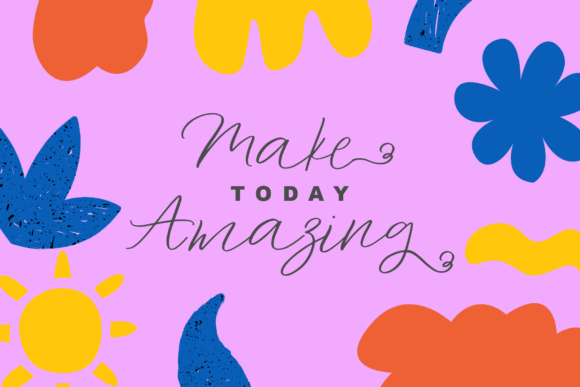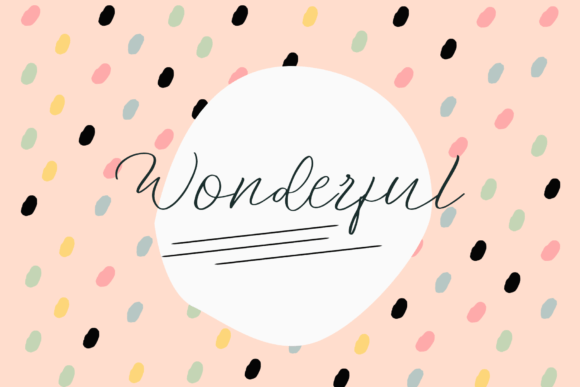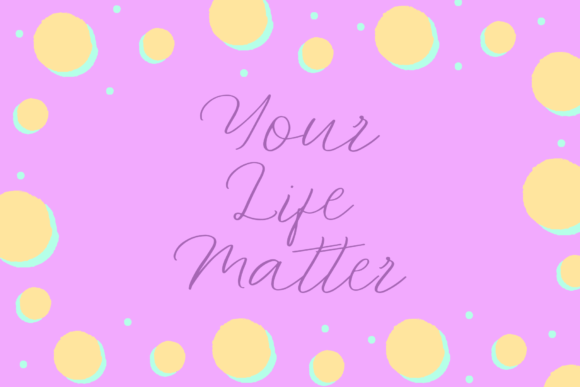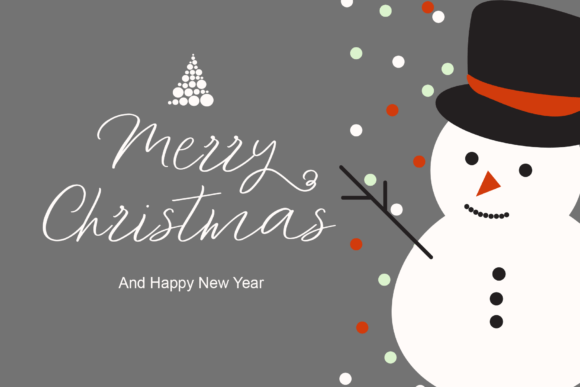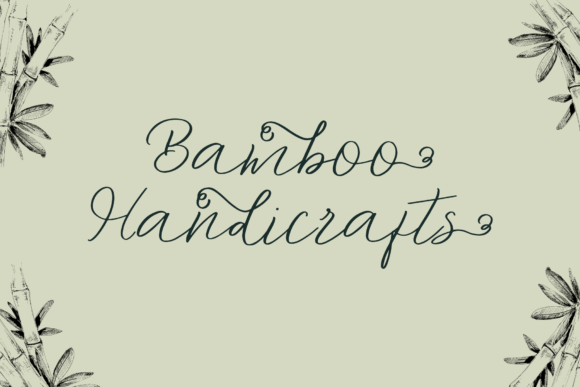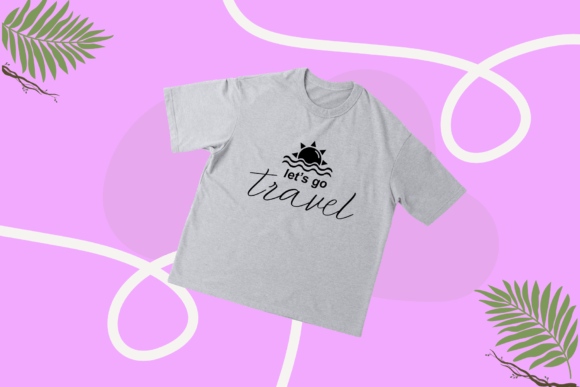
Introducing Hand Modify Font: Elevate Your Designs with a Touch of Whimsy
Are you tired of using the same old fonts in your designs? Do you want to add a personal touch to your creations? Look no further than Hand Modify Font, a fun and whimsical handwritten script font that’s sure to become a staple in your font library. In this article, we’ll dive into the features and benefits of Hand Modify Font, and explore how it can enhance your designs, whether you’re a seasoned designer or a crafty DIY enthusiast.
The Charm of Hand Modify Font
Hand Modify Font is a beautifully crafted handwritten script font that’s perfect for adding a touch of personality to your designs. With its flowing curves and playful strokes, this font is sure to capture the attention of your audience. Whether you’re creating a logo, a social media post, or a crafting project, Hand Modify Font is the perfect choice for anyone looking to add a dash of whimsy to their work.
One of the standout features of Hand Modify Font is its versatility. This font can be used on a wide range of topics, from formal events to casual gatherings, and everything in between. Whether you’re designing a wedding invitation, a party flyer, or a social media graphic, Hand Modify Font is sure to make your creation stand out.
Hand Modify Font is PUA (Private Use Area) encoded, which means that you can access all glyphs and swashes with ease. PUA encoding allows designers to access a wide range of special characters, including ligatures, ornaments, and swashes, that can be used to add an extra layer of creativity to your designs.
With Hand Modify Font, you can easily access all glyphs and swashes using a program like Adobe Illustrator or Photoshop. This means that you can customize your text to your heart’s content, adding flourishes and decorations that will make your design truly unique.
So, what are the benefits of using Hand Modify Font for designers and crafters? Here are just a few:
- Add a personal touch**: Hand Modify Font allows you to add a personal touch to your designs, making them stand out from the crowd.
- Easy to use**: With PUA encoding, accessing glyphs and swashes is a breeze, making it easy to customize your text.
- Versatile**: Hand Modify Font can be used on a wide range of topics and projects, making it a great addition to your font library.
- Time-saving**: With a wide range of glyphs and swashes at your fingertips, you can create professional-looking designs in no time.
Tips for Using Hand Modify Font
Here are a few tips for getting the most out of Hand Modify Font:
- Experiment with different sizes and colors**: Hand Modify Font looks great in a variety of sizes and colors, so don’t be afraid to experiment and find the perfect combination for your design.
- Mix and match glyphs and swashes**: With PUA encoding, you can easily mix and match glyphs and swashes to create a truly unique look.
- Use it for headlines and titles**: Hand Modify Font is perfect for headlines and titles, adding a touch of whimsy and personality to your text.
In conclusion, Hand Modify Font is a fun and whimsical handwritten script font that’s perfect for designers and crafters looking to add a personal touch to their creations. With its PUA encoding and wide range of glyphs and swashes, this font is sure to become a staple in your font library. Whether you’re creating a logo, a social media post, or a crafting project, Hand Modify Font is the perfect choice for anyone looking to elevate their designs with a touch of whimsy.